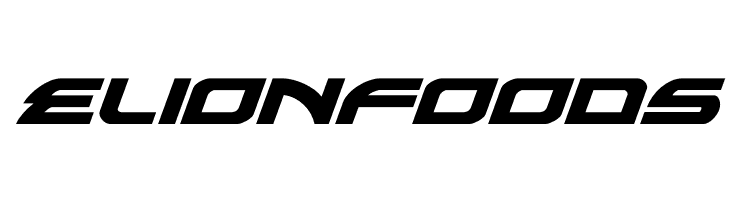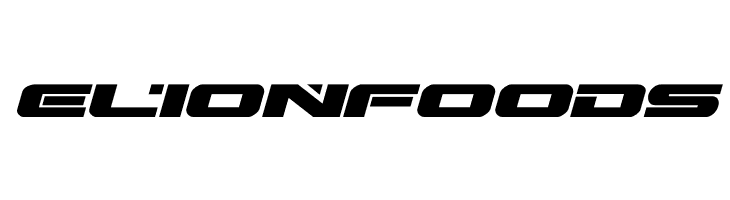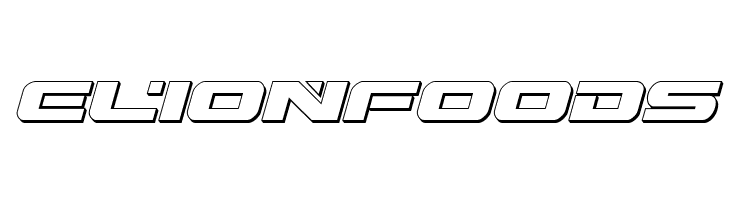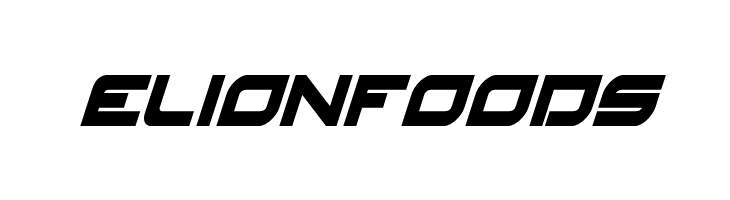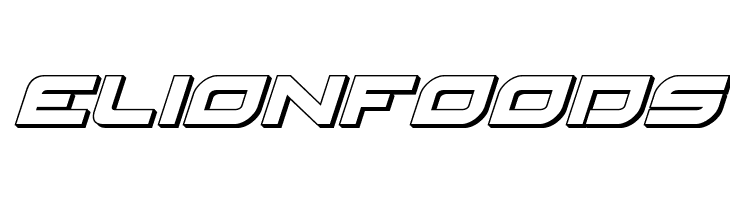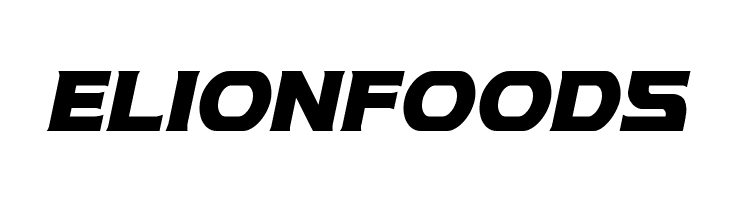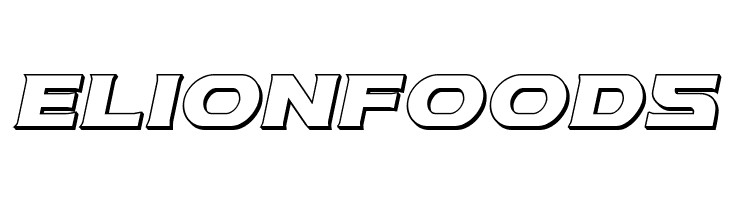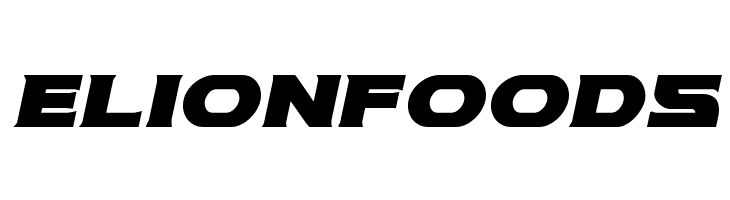
A bold, italic font with a modern, futuristic design and sharp angles.
A bold, italic, and condensed font with a futuristic and dynamic style.
A bold, expanded, and italicized modern font with a futuristic design.
A bold, 3D, italicized font with a futuristic and geometric design.
A dynamic, condensed italic font with a futuristic and bold style.
A bold, expanded, and italicized font with a futuristic and dynamic style.
A bold, italic, 3D-effect font with angular lines and a futuristic style.
A bold, italic, and condensed font with a modern and dynamic style.
A bold, 3D italic font with a modern, dynamic style.